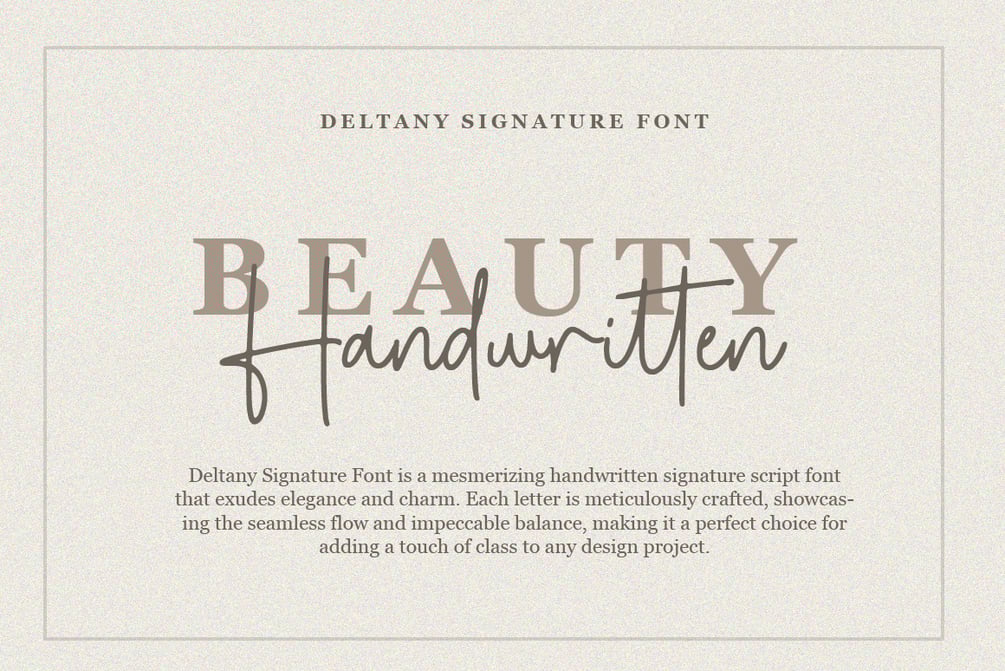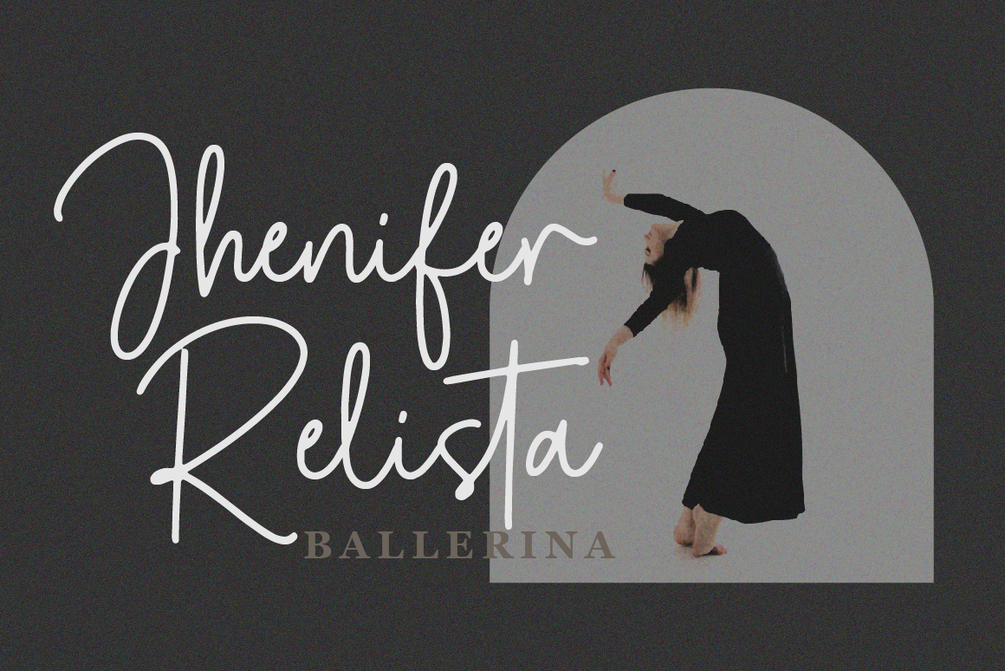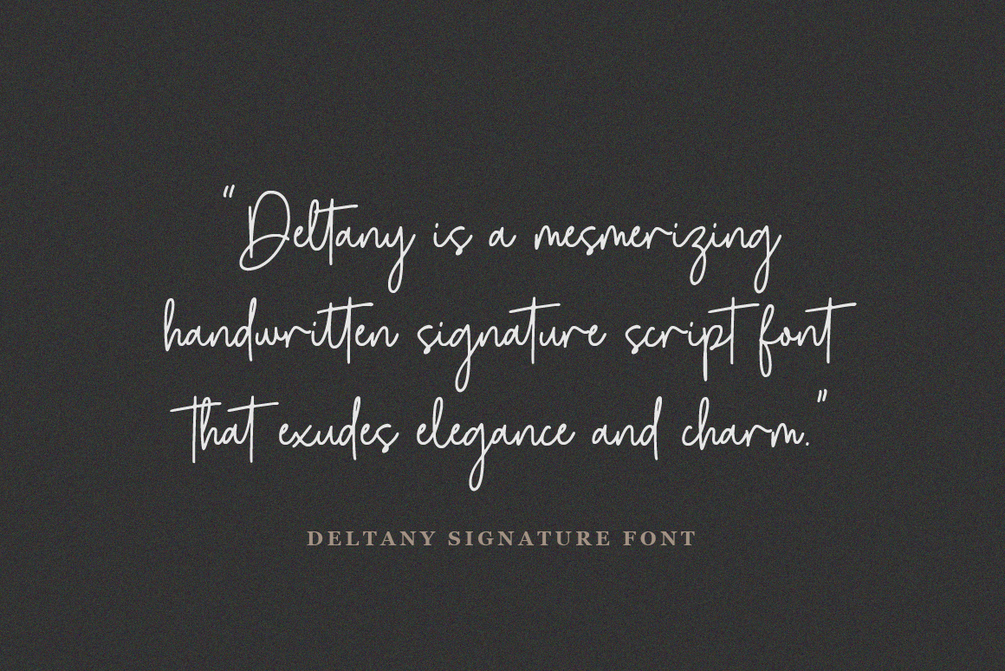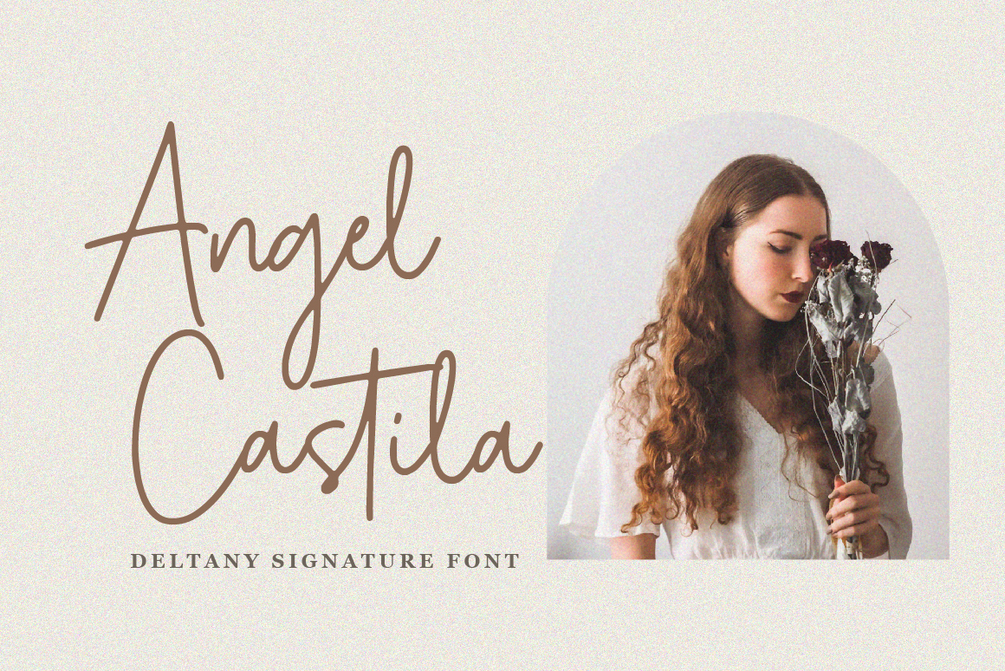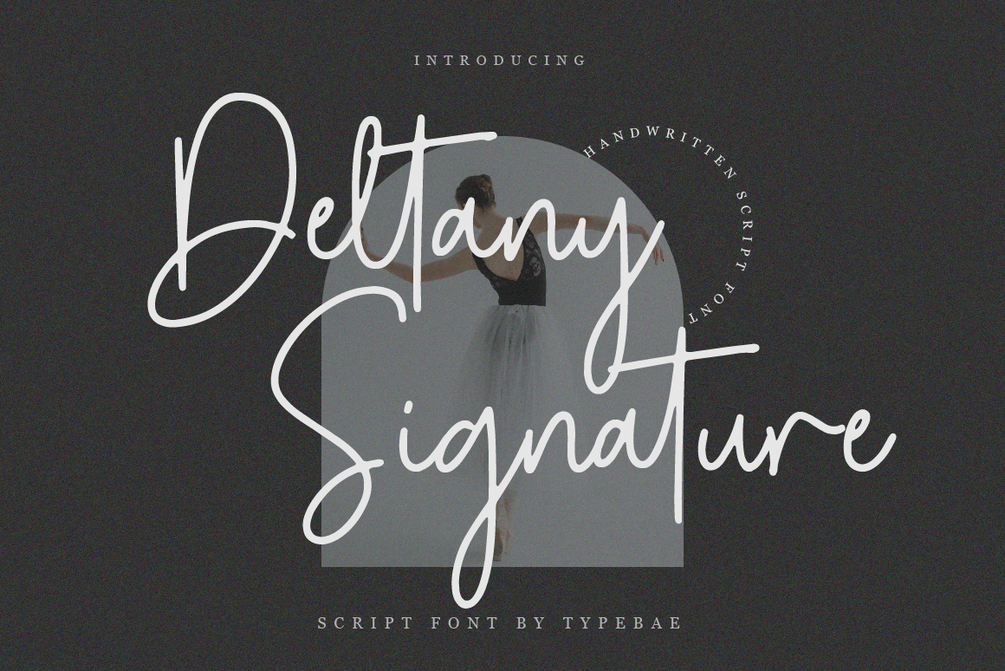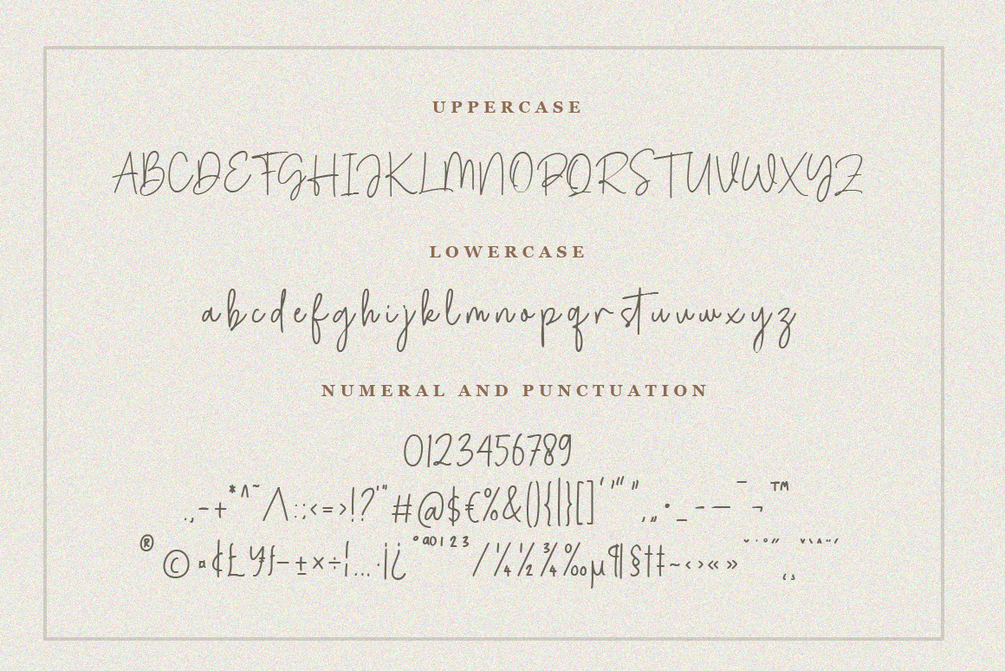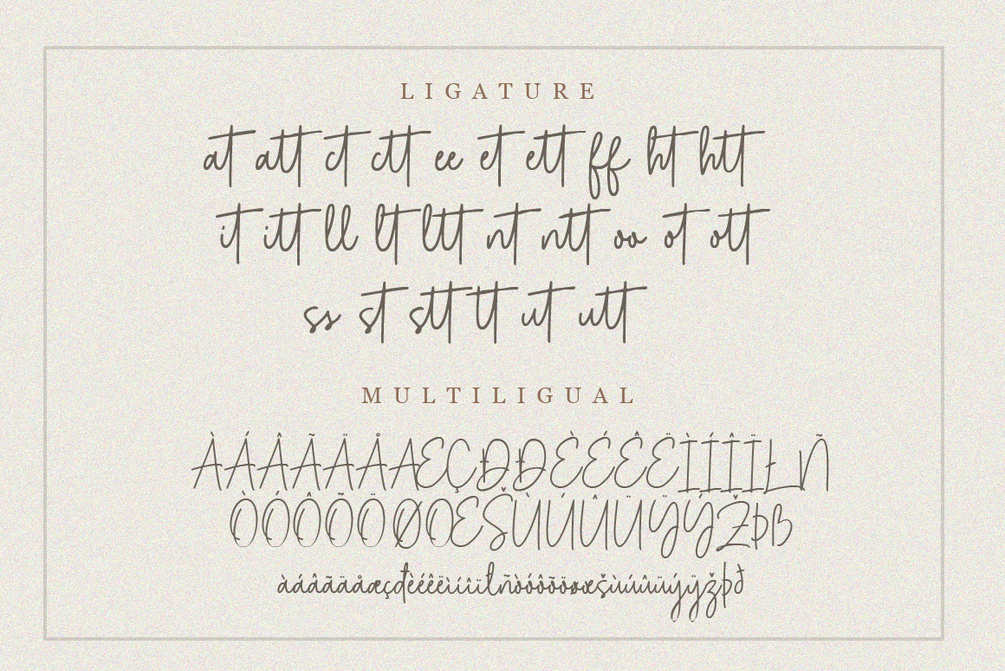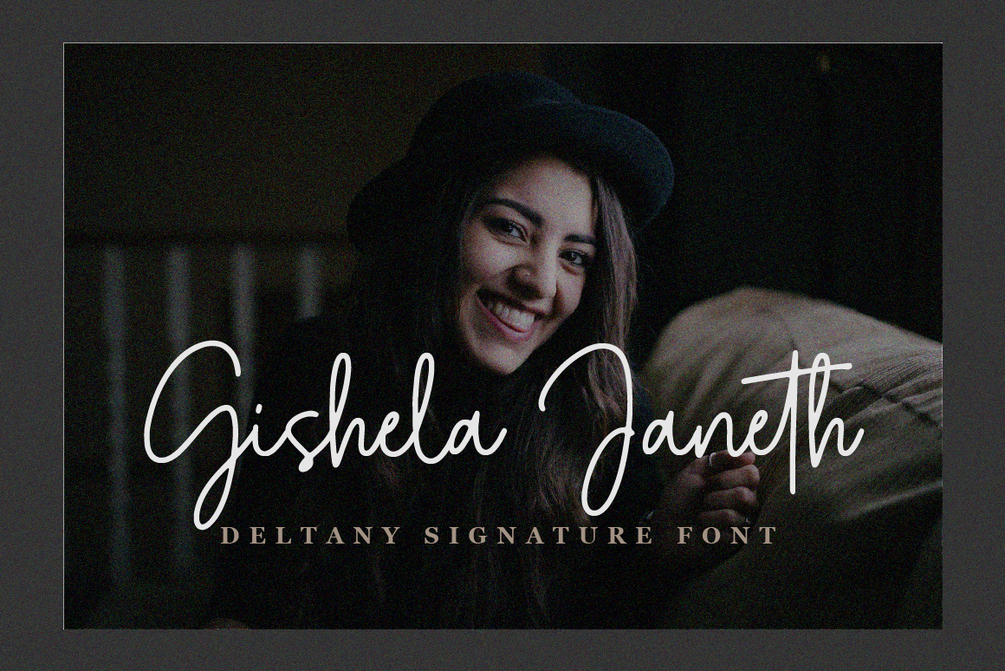
Deltany Signature
Deltany Signature Font is a mesmerizing handwritten signature script font that exudes elegance and charm. Each letter is meticulously crafted, showcasing the seamless flow and impeccable balance, making it a perfect choice for adding a touch of class to any design project.
• Full alphabet and punctuation
• Ligature feature
• Multilingual Support: Afrikaans, Basque, Breton, Catalan, Danish, Dutch, English, Finnish, French, Gaelic (Irish, Scots), German, Icelandic, Indonesian, Irish, Italian, Norwegian, Portuguese, Saami (Southern), Spanish, Swahili, Swedish.